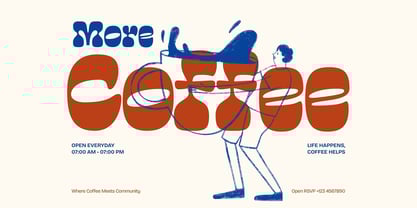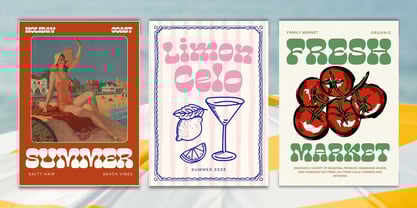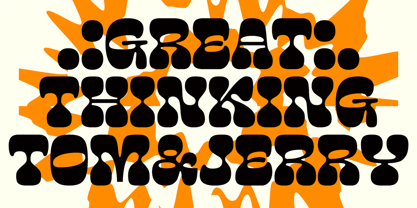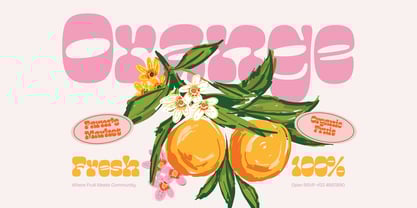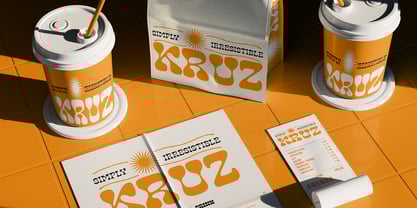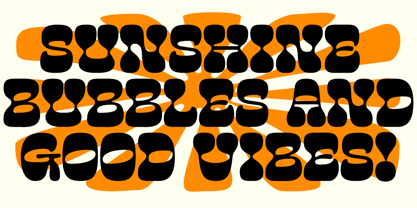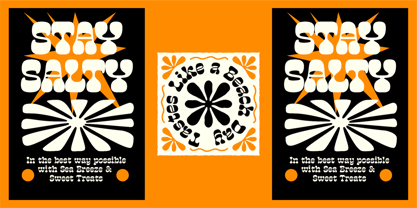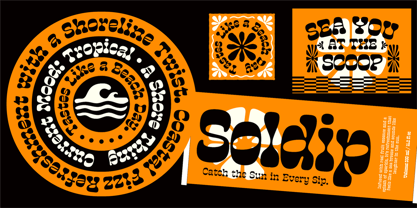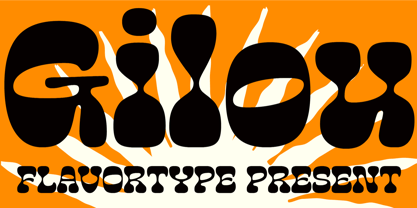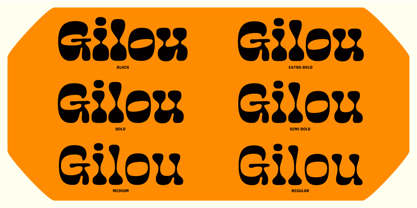
Gilou
by Flavortype
The Gilou Font Family was designed by Ilham Herry, Adam Fathoni Haris, panji nugroho, Rizky Setyaludin and published by Flavortype. Gilou contains 7 styles and family package options.
Soaked in sunshine and splashed with retro charm, Gilou brings bold personality and bubbly vibes to every design. Inspired by ‘70s psychedelia and beachy daydreams, this font is all about wavy forms, chunky curves, and a whole lotta soul. It’s a full-on sunshine trip — perfect for ice cream brands, fizzy drinks, music posters, and anything that craves a touch of trippy nostalgia.
Whether you're saying "Stay Salty!" or "Shell Yeah!", Gilou makes your words bounce with coastal cool and feel-good energy. Friendly, funky, and full of flair — Gilou’s got the juice.